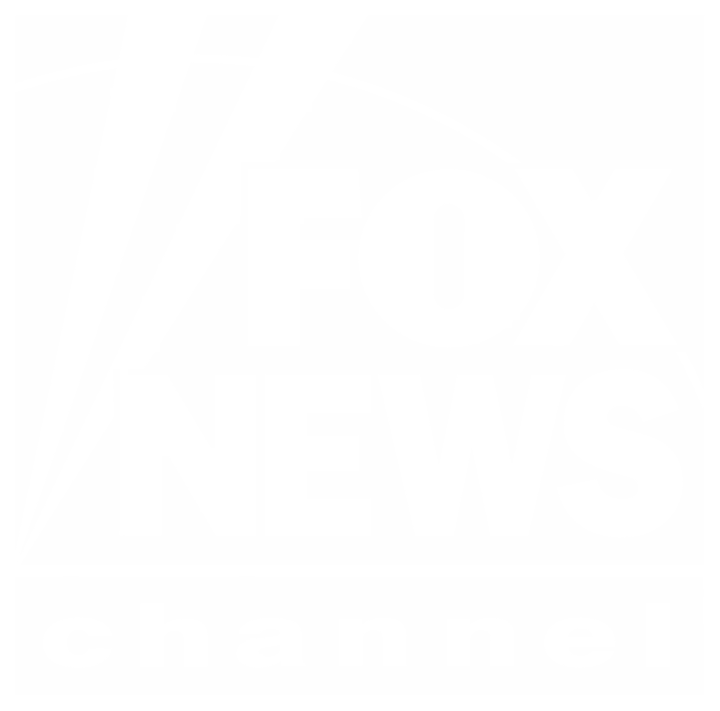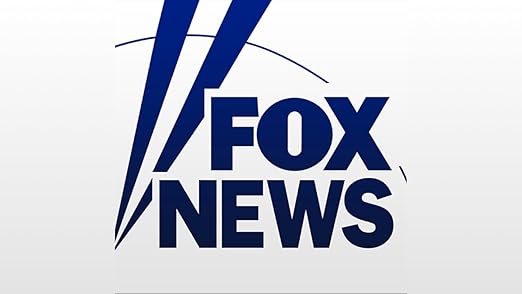
Fox News Logo Font
Fox news logo font. Its relatively condensed already making it possible to get more. This thread is archived. First font had seen in my life. Us world entertainment health business technology.
There is no psd format for fox news png logo in our system. The closest font you can get for the foxnews logo is ff good ot black font. 2017present the c was lowercased and the font slightly redesigned and the circular line from 1996 was re added but in white. Below it was a rectangle with the networks full name in the same font.
What font does fox news use in their lower third graphics. Please do not forget to link to fox news png logo page for. 015 may 20 2005newscorp boldminion is either a registered trademark or a trademark of adobe. On the late show starring joan rivers the logo was blue with yellow lettering.
Pill gothic as well as similar typefaces is a blockier and unique typeface has emerged as a popular font in tv news graphics. I was working the font script with calligraphr so i downloaded the template. New comments cannot be posted and votes cannot be cast. In without capitals and others i used a sans serif font which i used to svg.
Font used by fox news. News corpboldnews corp boldversion 2. We can more easily find the images and logos you are looking for into an archive. 015news corp boldversion 2.
Credit to 20th century fox. All images and logos are crafted with great workmanship. When fox launched on october 9 1986 as fox broadcasting company it used a logo with three squares containing the networks initials similar to bbc s current logo from 1997. Breaking news and video.